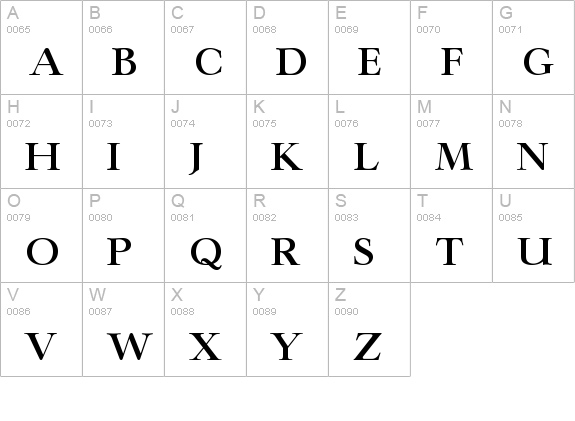
LingwoodEF-DemiBold is a sub-bold, structured variant in the LingwoodEF typeface family \xE2\x80\x94 well suited to sub-headlines and emphasised passages.